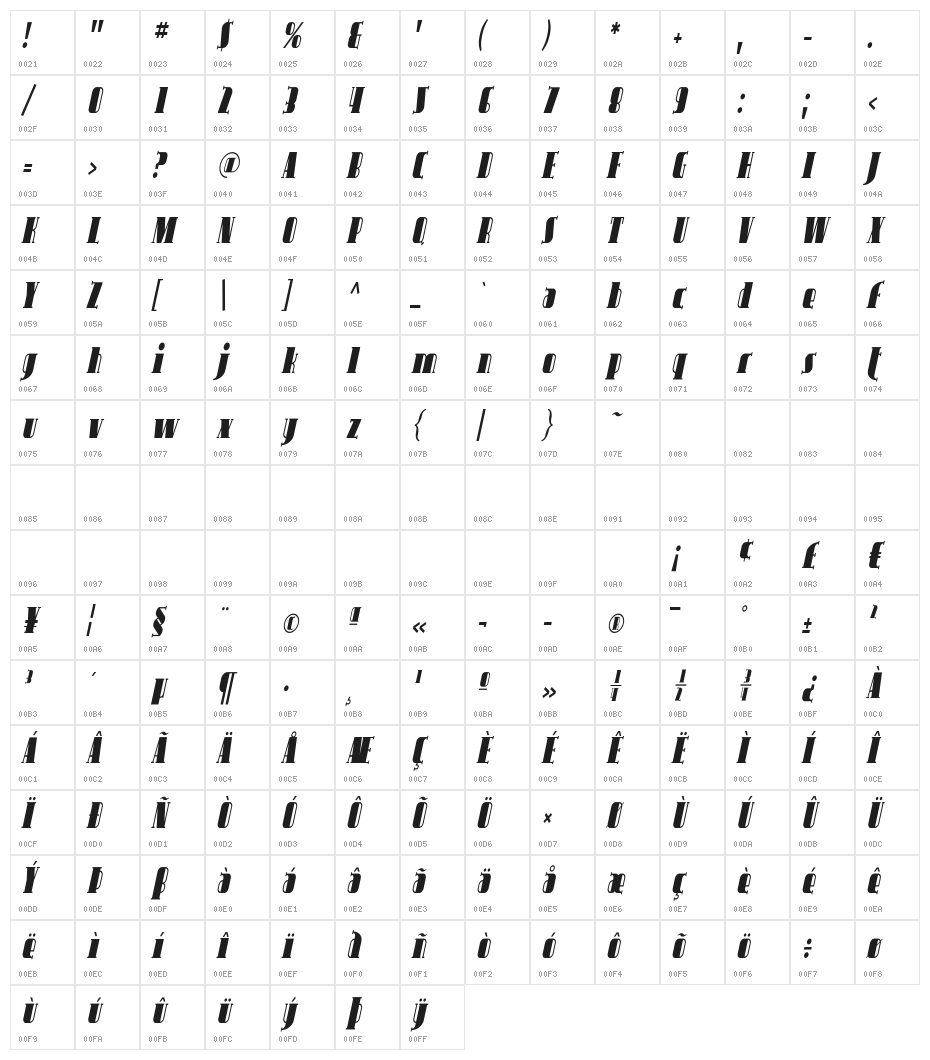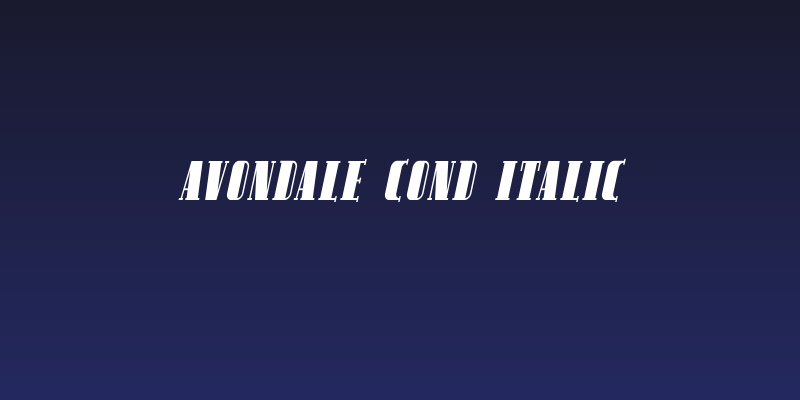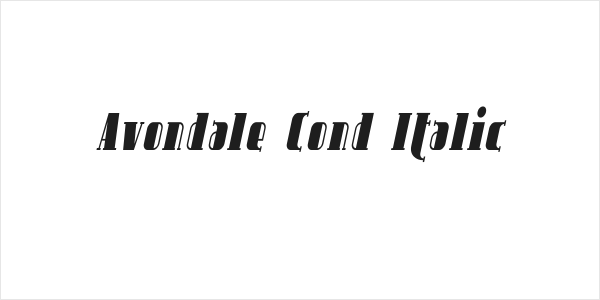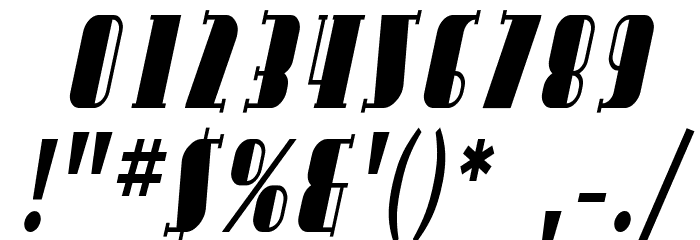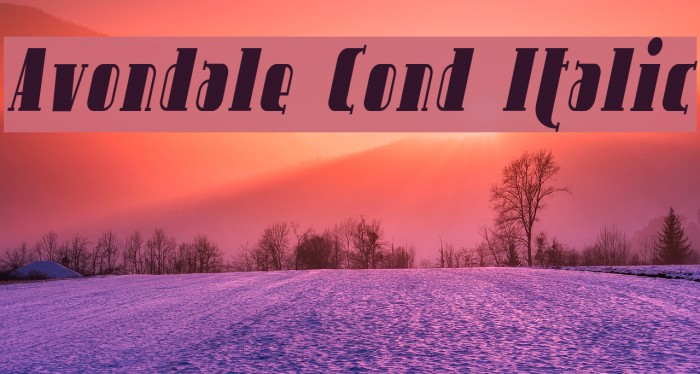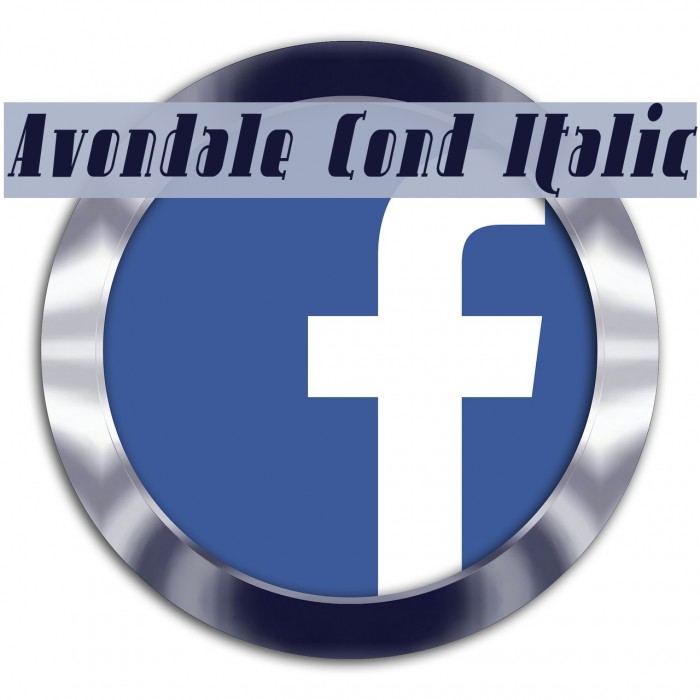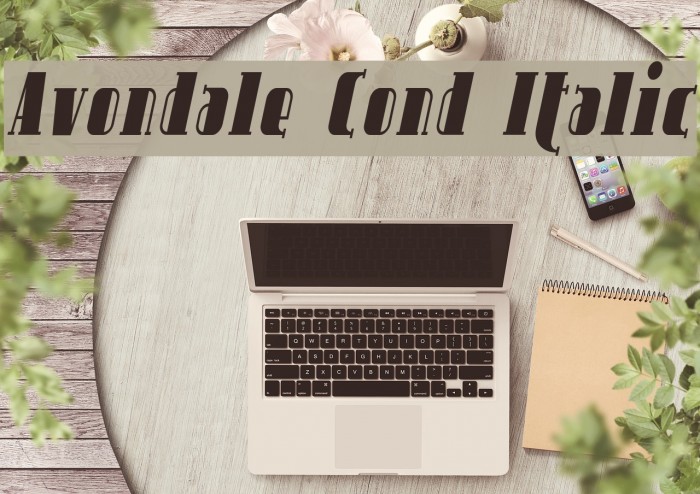
Avondale Cond Italic Font
Avondale Cond Italic Description
This font features a distinct italic style with a condensed width, giving it a sleek and modern appearance. The characters are elongated with sharp serifs, creating a dynamic and elegant look. The uppercase letters are tall and commanding, while the lowercase letters maintain a consistent flow with a slight slant. The numerals are bold and clear, ensuring readability. Special characters are designed with the same attention to detail, making them stand out. Overall, this font combines traditional serif elements with a contemporary twist, making it suitable for various design applications.